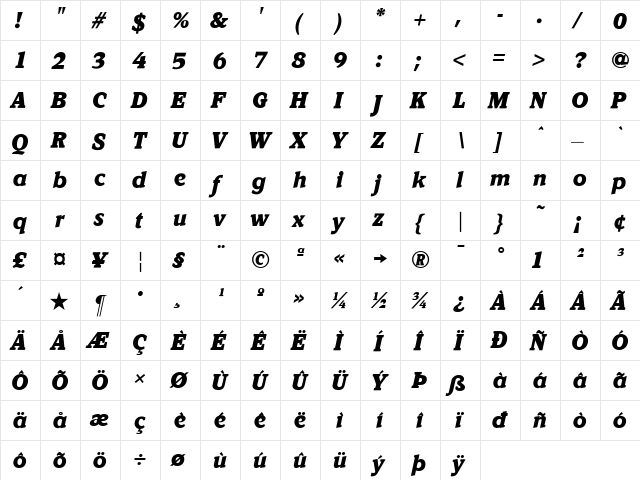
Kandal Regular Font Preview
Kandal Regular
Kandal Regular Font Details
Design Context for Kandal Typeface
Kandal takes a measured approach to typography — its balanced proportions and neutral character make it a reliable workhorse for both digital and print work.